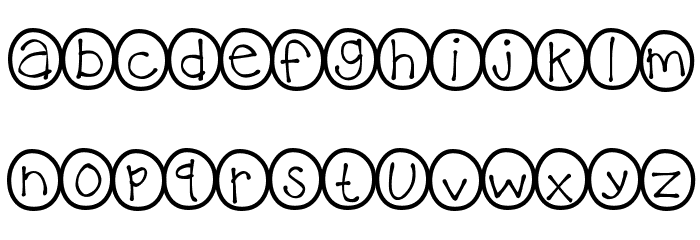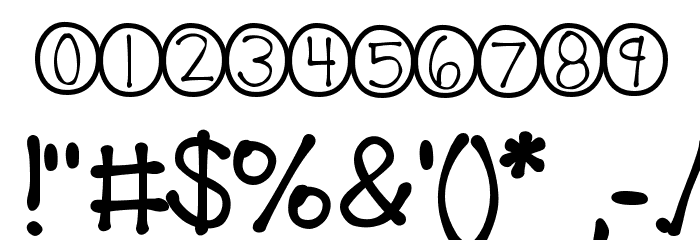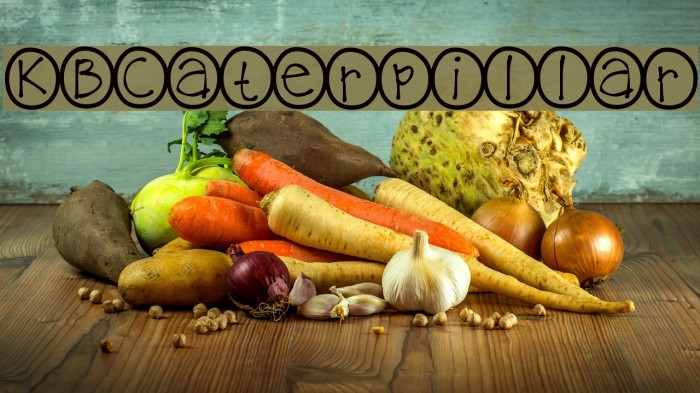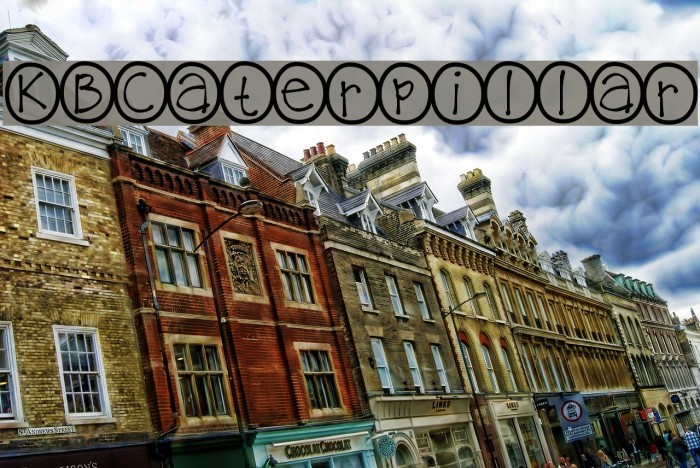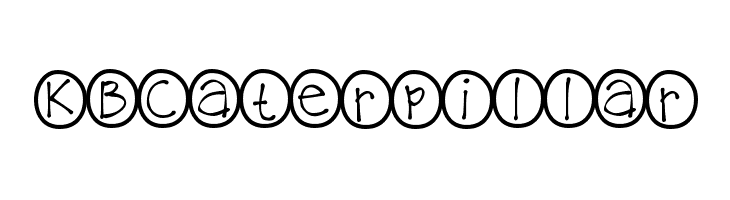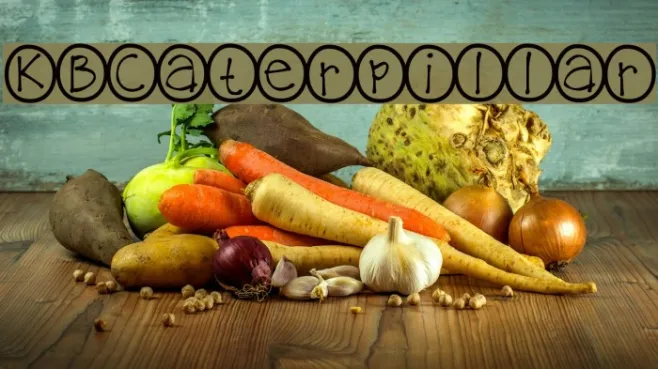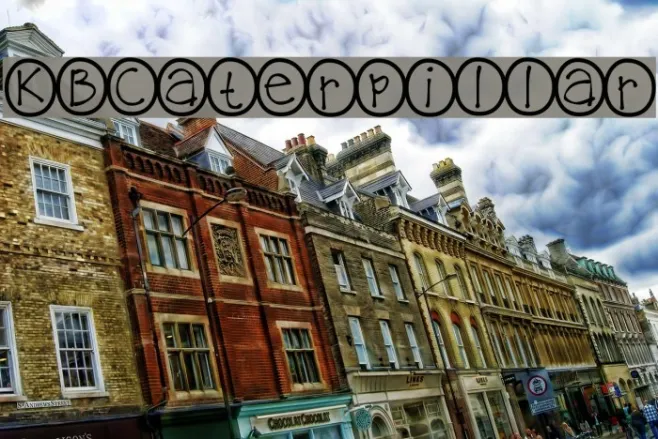
KBCaterpillar Font
This playful and whimsical font features bold, rounded characters enclosed within circular outlines, creating a unique and eye-catching appearance. Each letter and number is distinct, with a hand-drawn quality that adds a personal touch. The font's design is consistent across uppercase, lowercase, and numerical characters, maintaining a cohesive look. The special characters also follow the same style, ensuring uniformity. Its bold and decorative nature makes it ideal for projects that require a fun and engaging visual element.
A playful, bold font with rounded characters enclosed in circles.
- Proposed Projects: Ideal for children's books, playful branding, party invitations, and educational materials.
- Overall Style: Playful, Whimsical